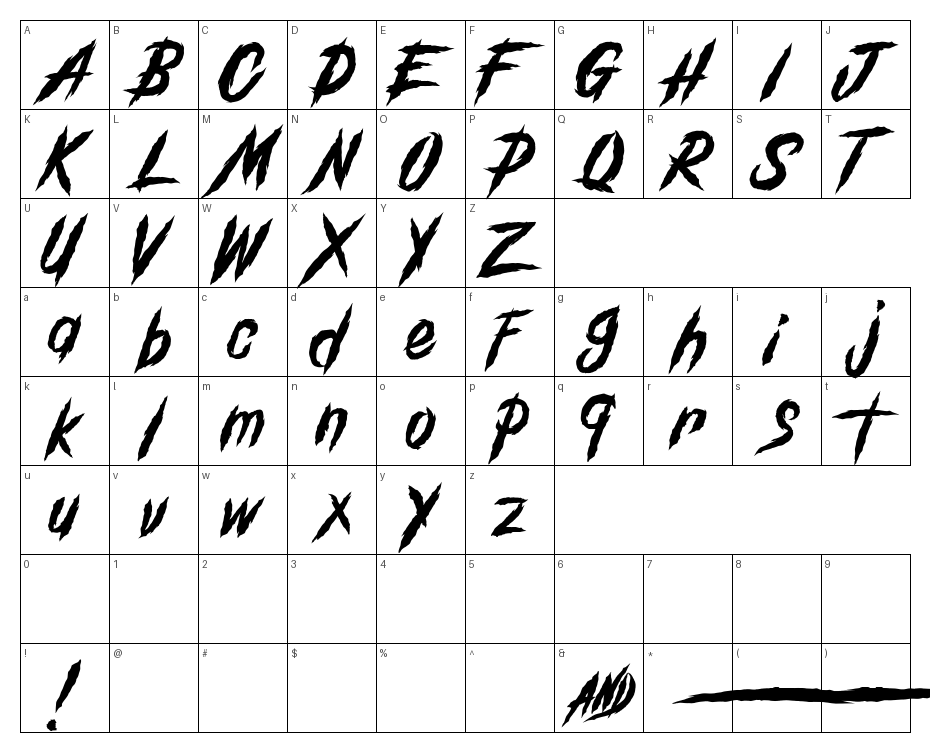
Font: Grind and Death
Type: Brutal Font
- Brutal font style inspired in listening to deathcore and heavy music
- Available in uppercase and lowercase
Schriftname: Grind And Death
Name des Designers: CconceptLab